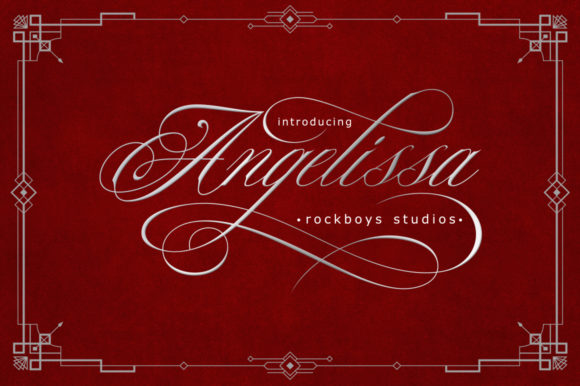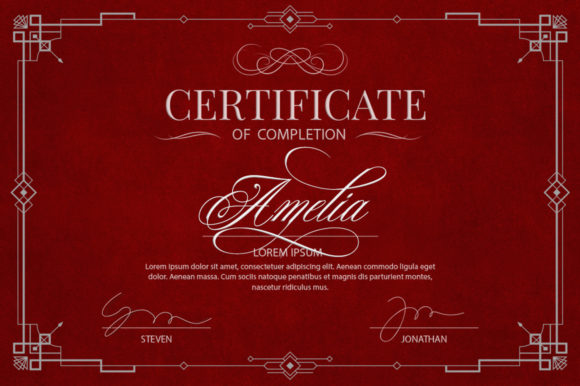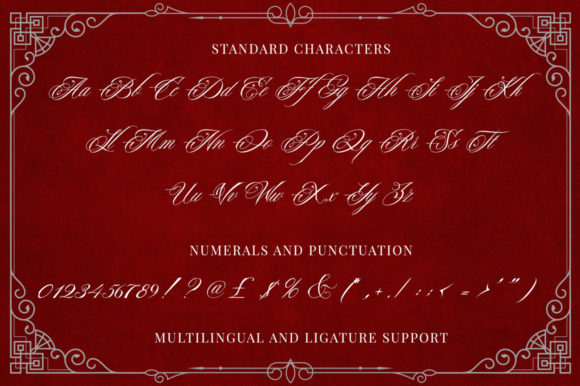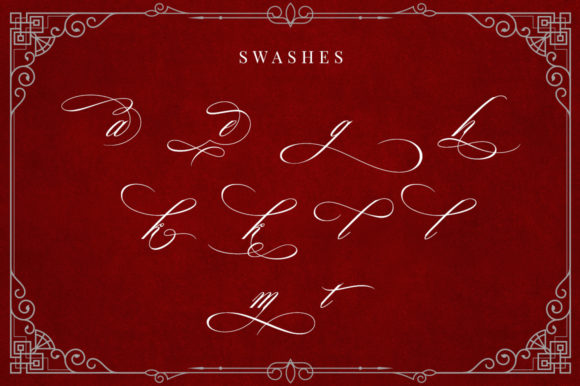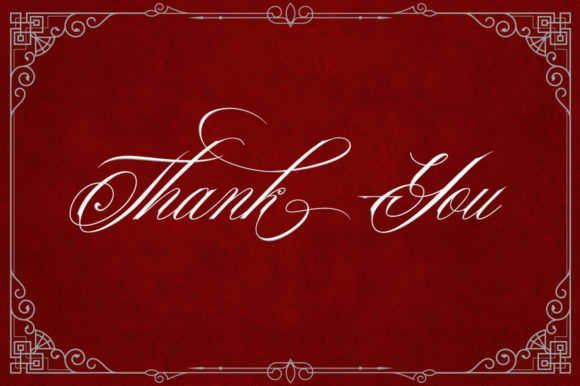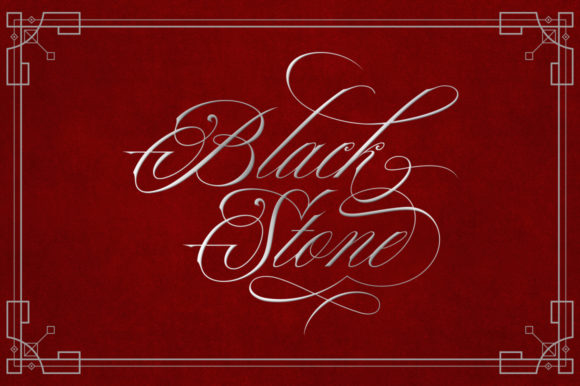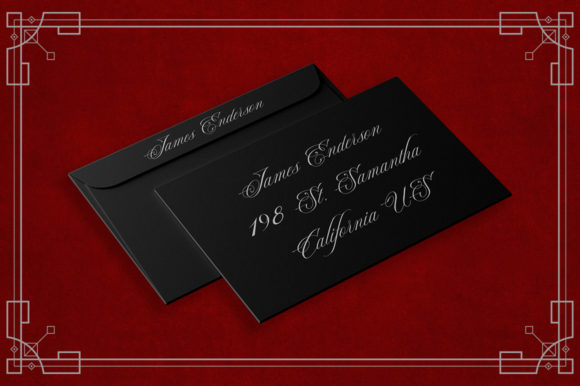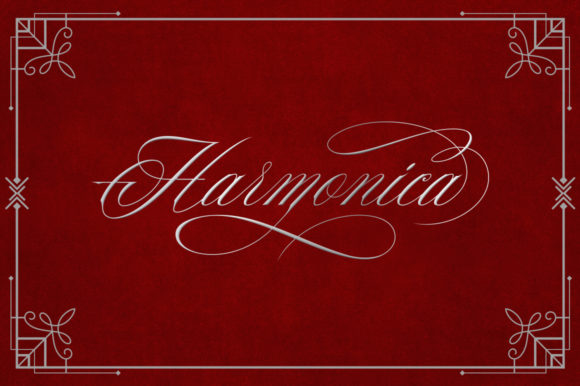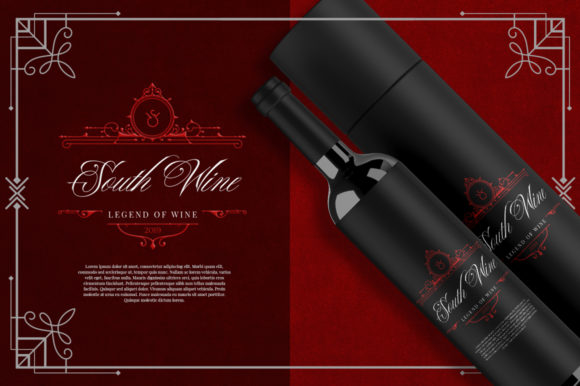
Angelissa Font
About Angelissa Font
Angelissa is a stunning and graceful handwritten font that exudes beauty and elegance. Its delicate and well-balanced letterforms make it a perfect choice for adding a touch of sophistication to your designs.
With Angelissa, your designs will come to life with its timeless and enchanting style. Whether you’re working on wedding invitations, greeting cards, quotes, logos, or any other design that requires a personalized and elegant touch, Angelissa will elevate your projects to new heights.
The flowing and harmonious curves of Angelissa create a sense of grace and refinement. Each letter is meticulously crafted to ensure a seamless and balanced look, allowing the font to shine in any context. Whether used in larger headlines or smaller text sizes, Angelissa maintains its elegance and legibility.
The versatility of Angelissa lends itself to a wide range of design applications. Its refined and elegant appearance makes it suitable for formal and upscale designs, such as wedding stationery, high-end branding, and luxury product packaging. At the same time, its timeless charm also works beautifully in more casual and whimsical projects, adding a touch of sophistication and warmth.
Angelissa’s beauty extends beyond its individual characters. It also features a set of stylish alternates and ligatures that allow you to add variety and flair to your designs. These additional glyphs can be easily accessed through OpenType features, providing you with even more creative possibilities.
Whether you’re a professional designer or a DIY enthusiast, Angelissa will inspire and captivate with its elegance and charm. Its natural and unique style will bring a touch of refinement to any project, making it truly stand out.
In conclusion, Angelissa is a beautiful and elegant handwritten font that brings a sense of grace and sophistication to your designs. Its delicate and well-balanced letterforms, along with its stylish alternates, make it a versatile choice for a wide range of design projects. Embrace the timeless beauty of Angelissa and let it brighten up each of your designs.